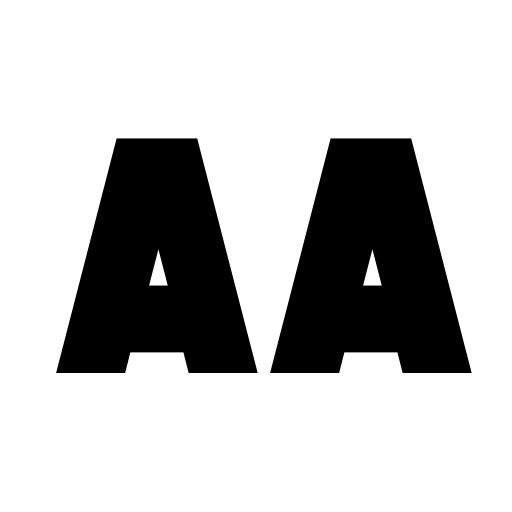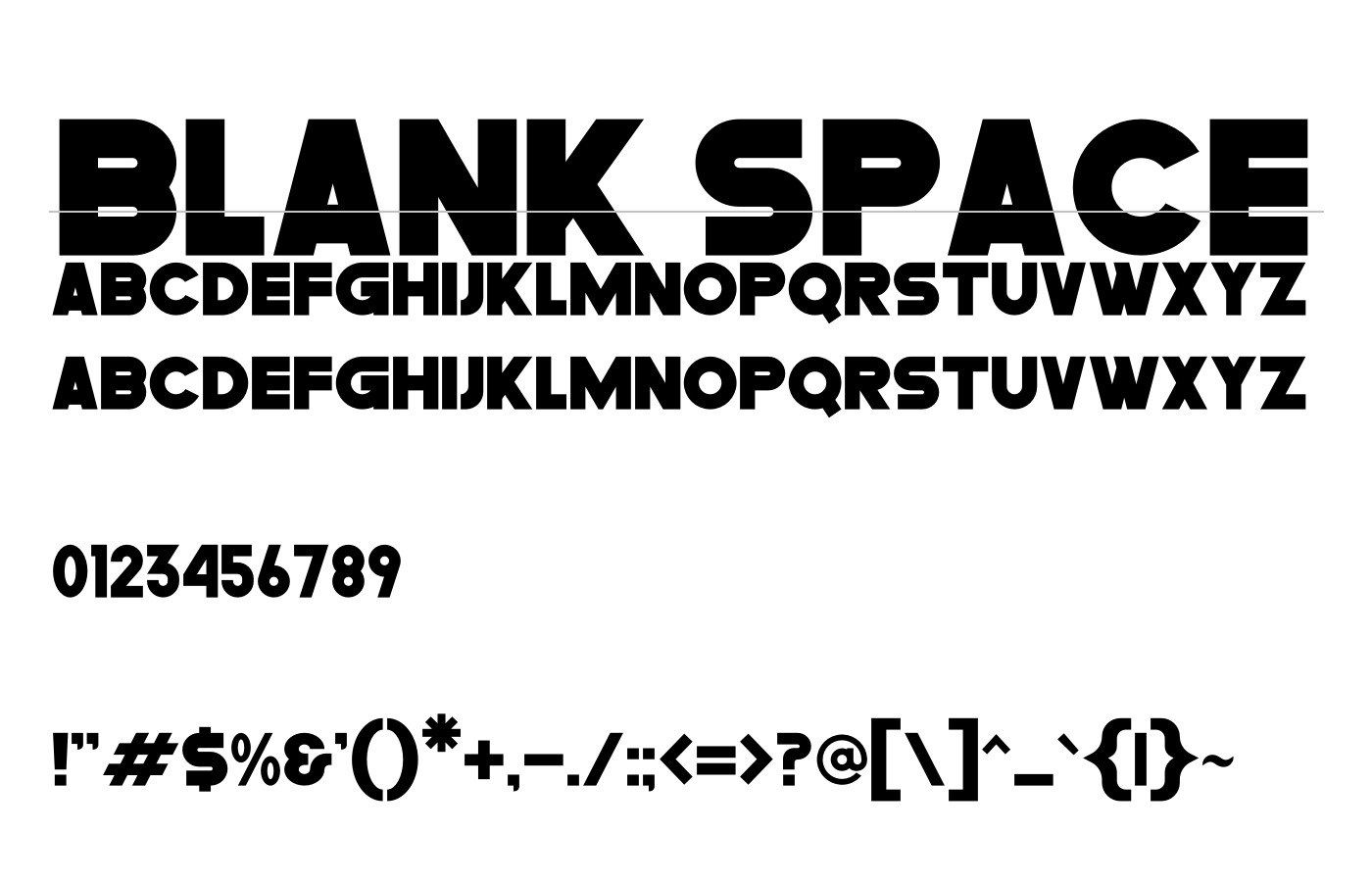
BLANK SPACE is a bold, geometric sans serif font characterized by its heavy weight and wide, sturdy letterforms. It features a high x-height, low stroke contrast, and clean, sharp edges that create a strong, confident presence ideal for impactful headlines and branding. This font’s modern, assertive style works best in logos, posters, and editorial designs where boldness and clarity are key.
BLANK SPACE Font
About BLANK SPACE Font